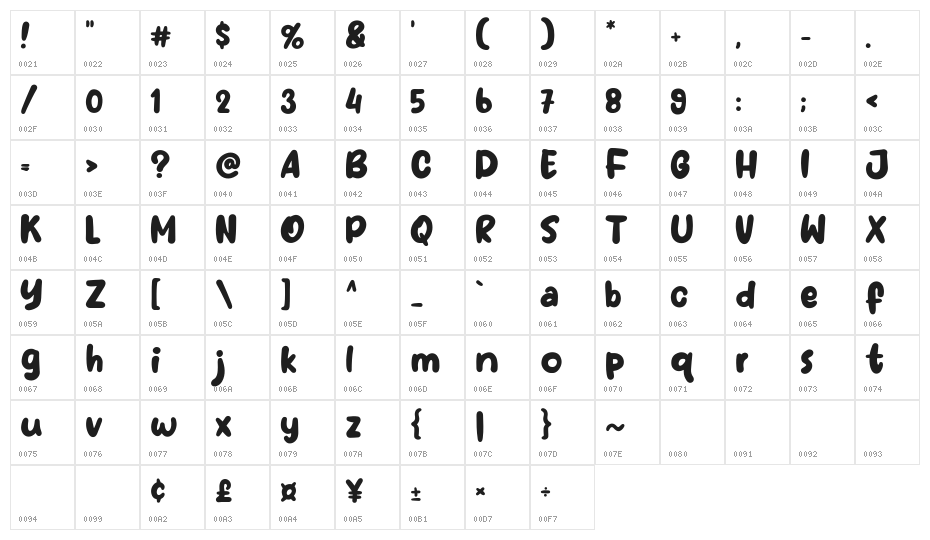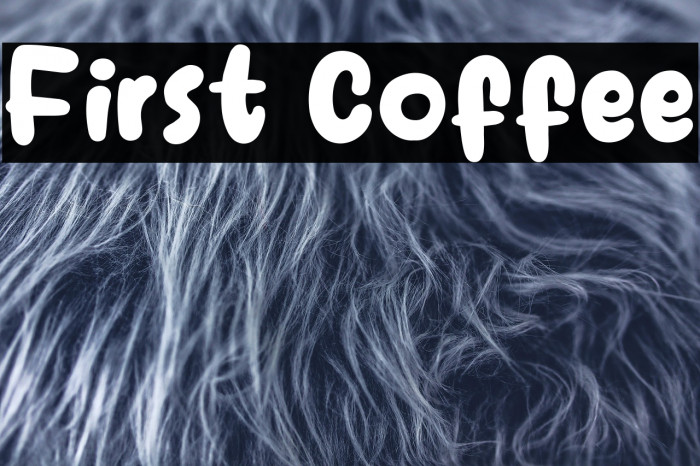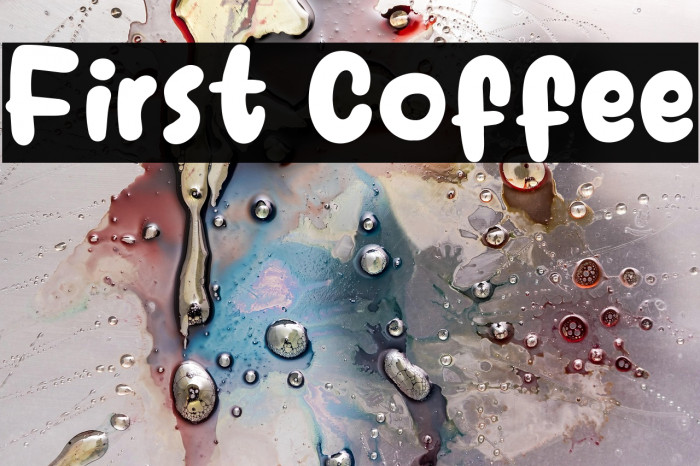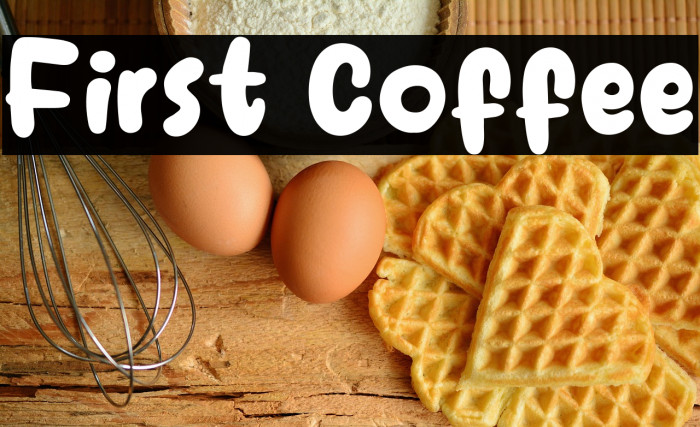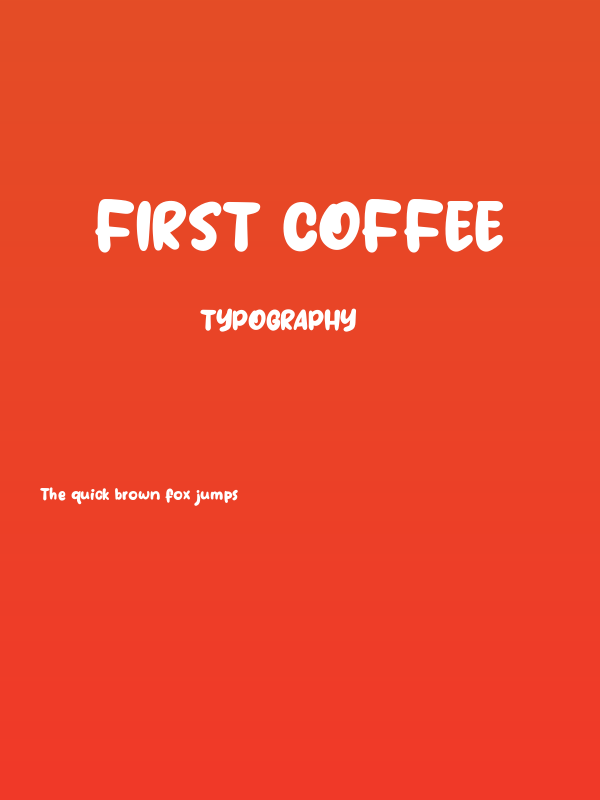
First Coffee Font
First Coffee Description
This playful and bold font features a handwritten style with rounded edges and a friendly appearance. The characters are thick and uniform, giving a sense of warmth and approachability. The uppercase and lowercase letters maintain a consistent style, with a slight bounce that adds to the casual and informal feel. Numbers and special characters are designed to match the overall aesthetic, ensuring a cohesive look across all text. The font's design is reminiscent of hand-drawn lettering, making it ideal for projects that require a personal touch or a fun, engaging vibe.
| Overall Style | Playful, Casual |
| Use Case | Headlines, Logos, Social media graphics |
| Proposed Projects | Ideal for children's books, playful branding, casual invitations, and social media graphics. |